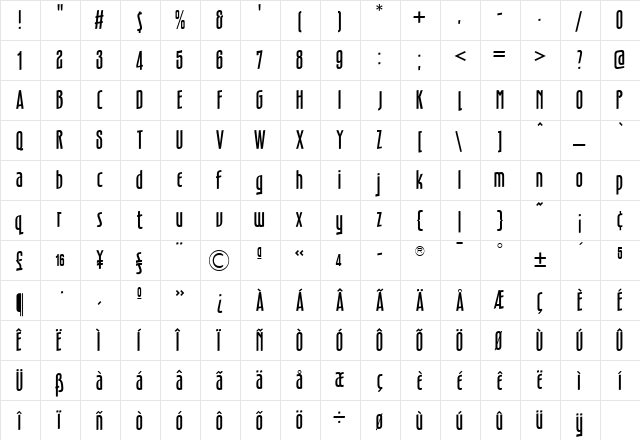
TFHotelmodCalligr Medium Font Preview
TFHotelmodCalligr Medium
Design Context for TFHotelmodCalligr Typeface
TFHotelmodCalligr takes a measured approach to typography — its balanced proportions and neutral character make it a reliable workhorse for both digital and print work.